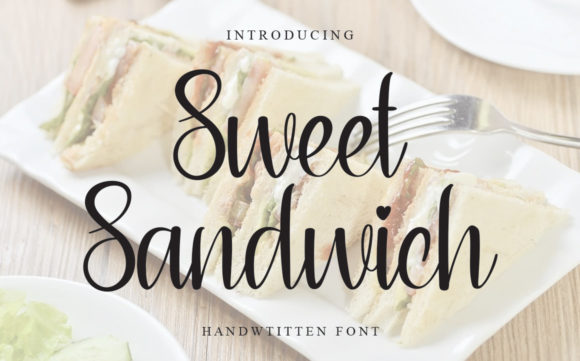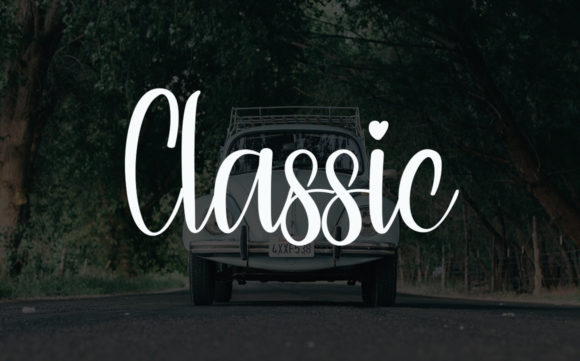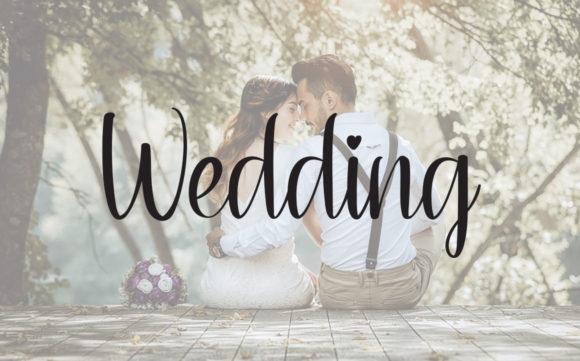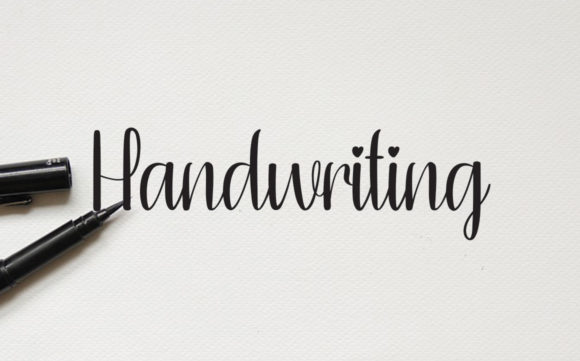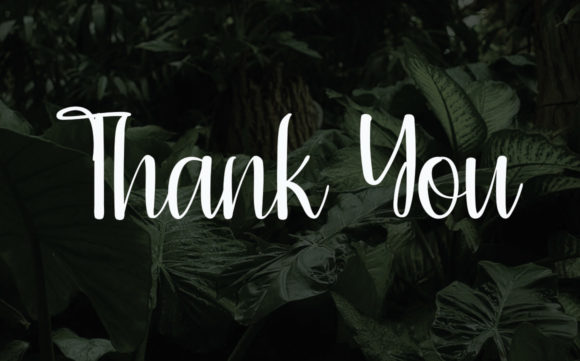
Sweet Sandwich Font
About Sweet Sandwich Font
Sweet Sandwich is a beautiful and flowing handwritten font. Use it for wall displays, wedding invitations, social media post logos,
advertisements, product packaging, product designs, and any project that requires impressive typography.